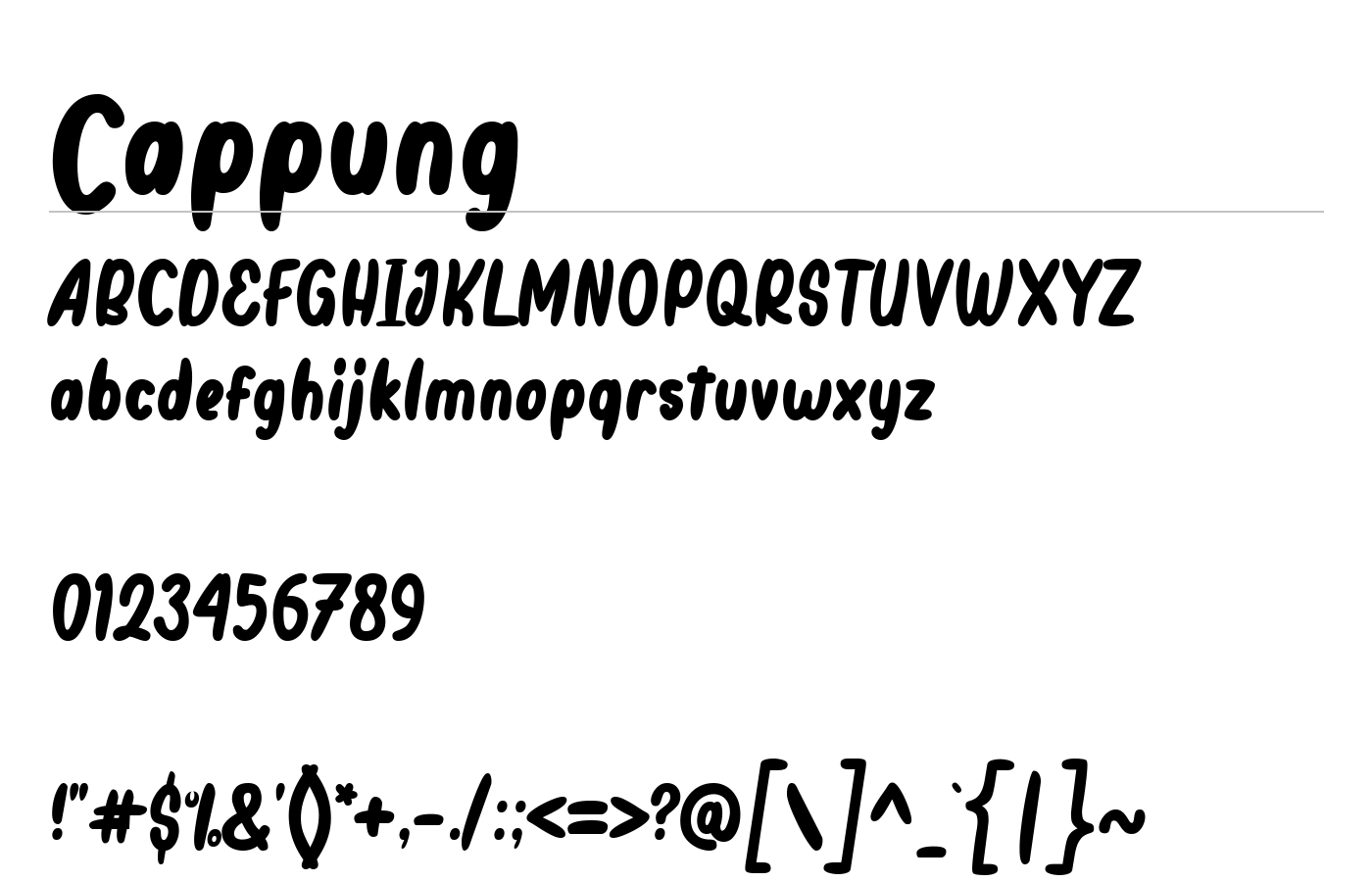
Cappung is a playful and informal sans serif font with a bold, rounded style that gives it a friendly and approachable feel. Its slightly condensed letterforms and lively curves make it perfect for creative headlines, fun branding, or casual designs seeking a warm, handwritten touch. This font works well where a cheerful, energetic vibe is desired, such as in posters, kids’ products, or web graphics.
Cappung Font
About Cappung Font
| Font family | Cappung Font |
| Designer | Kelik; Dani; Situjuh Nazara |